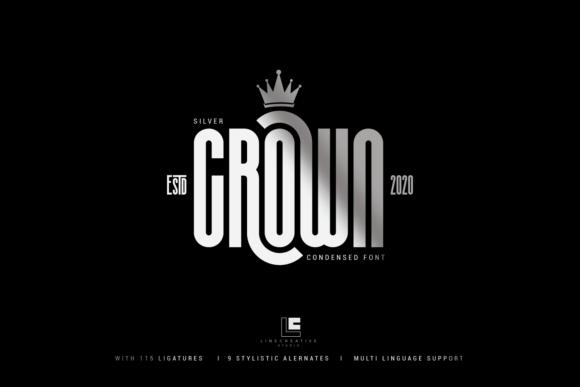
Introducing Silvel Crown Font, a display font family that's perfect for making your designs stand out. With its ultra-condensed form, this font exudes a sense of elegance and sophistication, sure to elevate any project you're working on.
Unleash your creativity with Silver Crown, the font that knows no bounds. Whether you're crafting logos or labels, wedding invitations or branding materials, this font has the versatility to bring your visions to life. Its distinct character adds a touch of originality to everything it adorns, leaving a lasting impression on your audience.
With Silver Crown as your design companion, you'll embark on a journey of limitless possibilities. This font transforms ordinary designs into captivating masterpieces, turning heads and leaving a lasting impact. Experience the thrill of creating designs that resonate with your audience, leaving them captivated and inspired.
Dive into the world of Silver Crown and discover a font that's not just a tool but an art form. Its ultra-condensed structure creates a visual symphony, drawing attention and igniting imaginations. Let Silver Crown be your muse as you weave tales of beauty and intrigue through your designs.
So, join the creative revolution and embrace the power of Silver Crown Font. Let your designs shine brighter, your messages resonate deeper, and your creations leave an indelible mark on the world. Unleash the boundless potential within you and watch as Silver Crown elevates your designs to the highest level of brilliance.